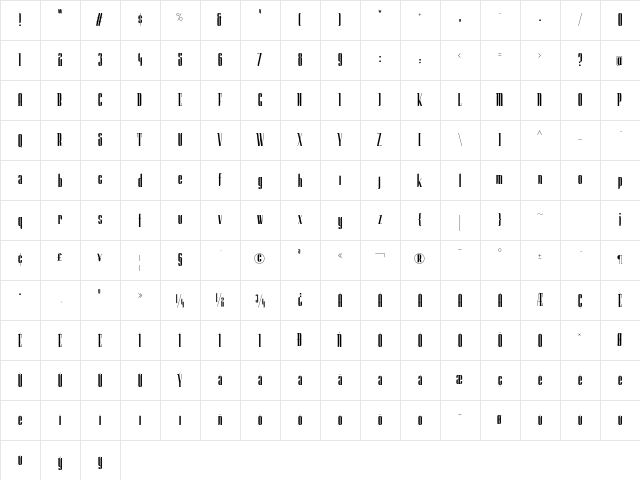
Granfondo Bold Condensed
Design Context for Granfondo Typeface
Granfondo takes a measured approach to typography — its balanced proportions and neutral character make it a reliable workhorse for both digital and print work. Its bold stroke weight gives it real presence on the page. The condensed width makes it efficient for tight spaces without sacrificing legibility.